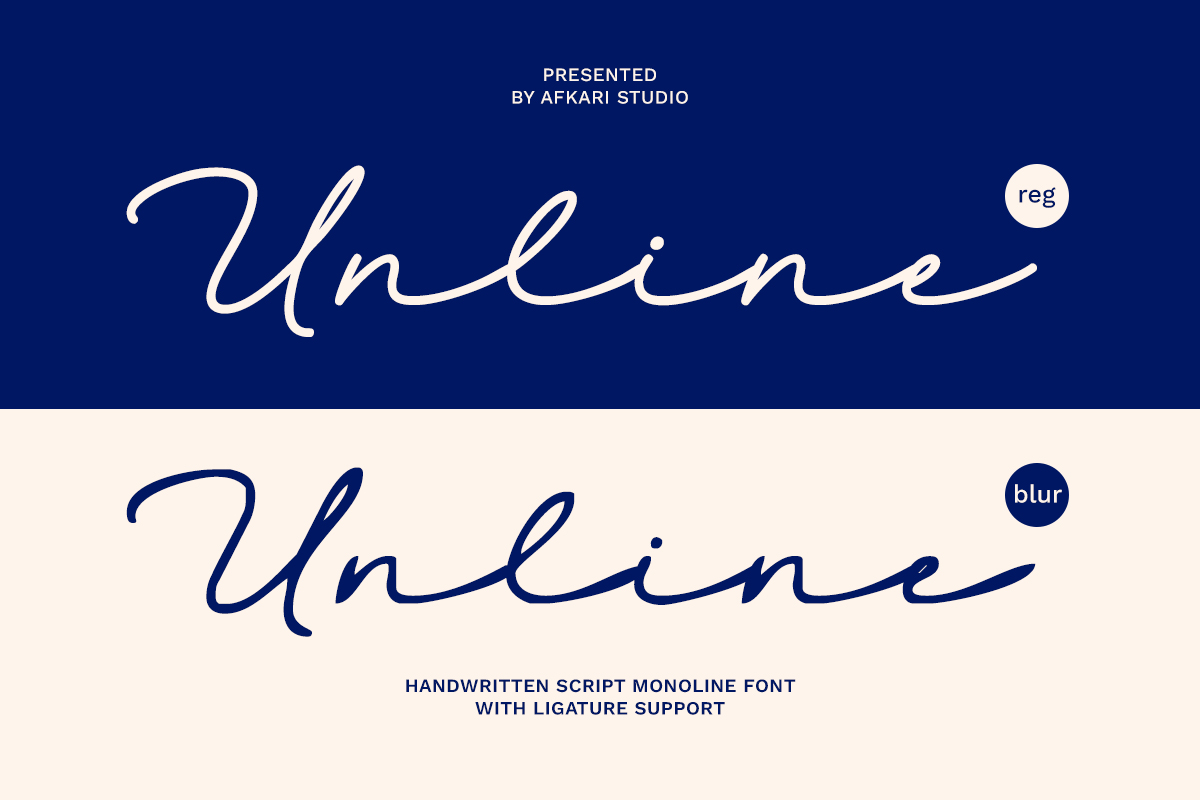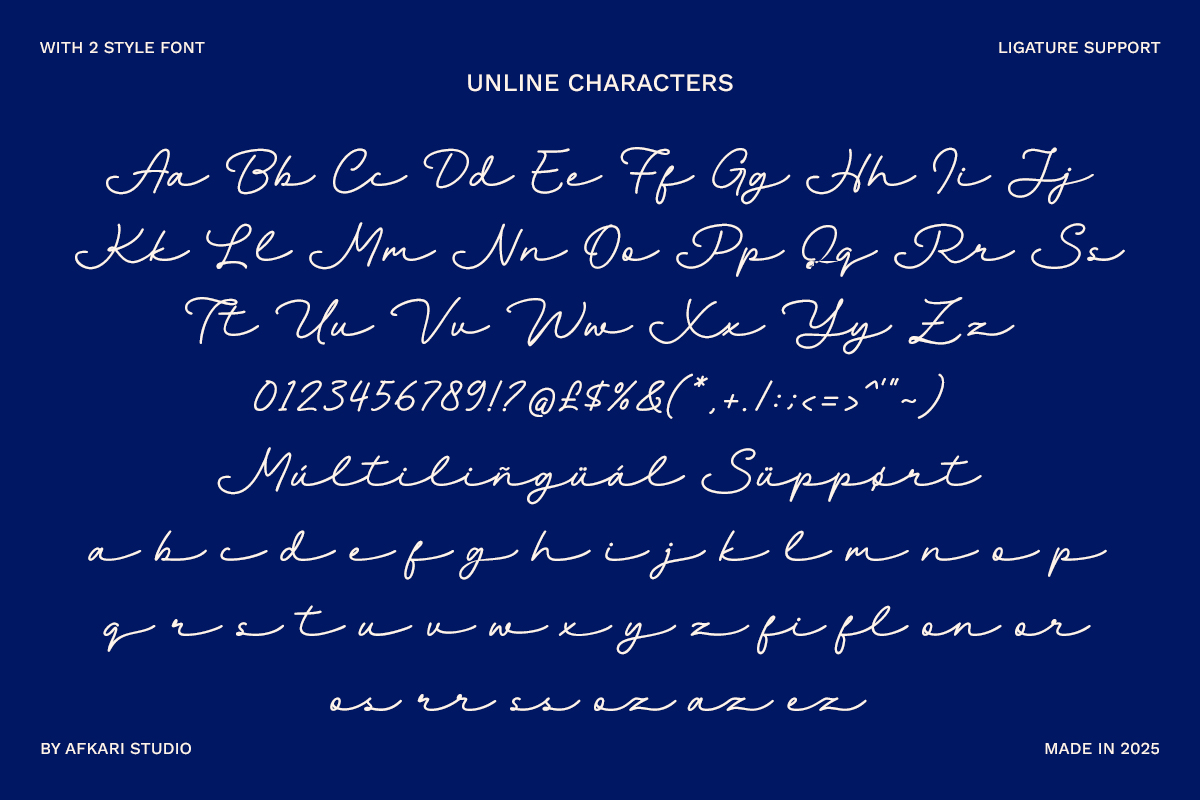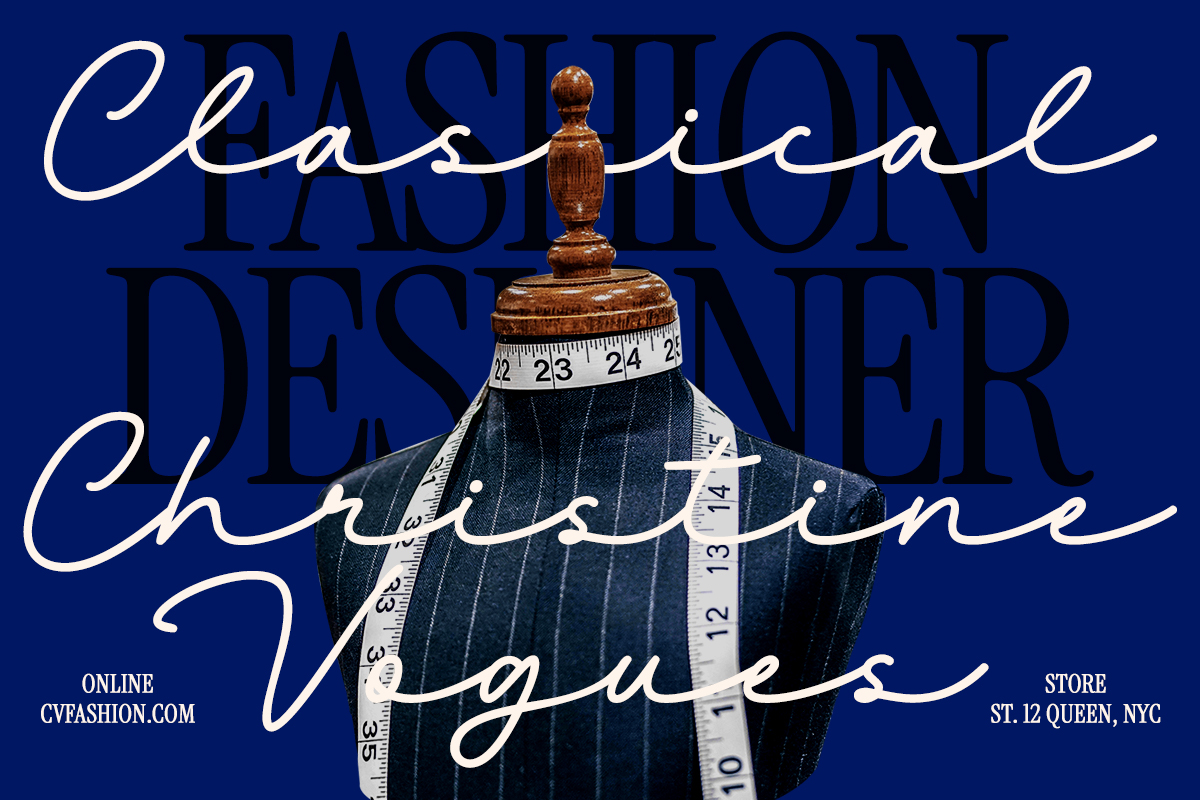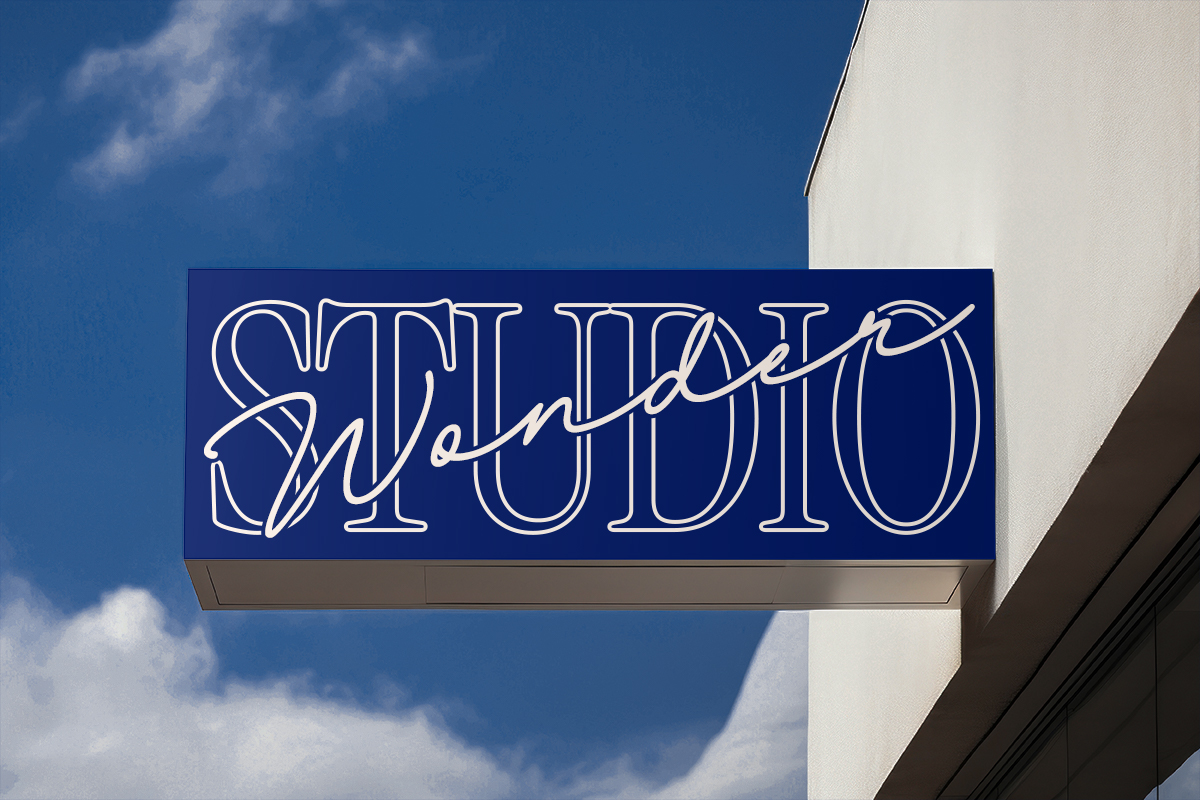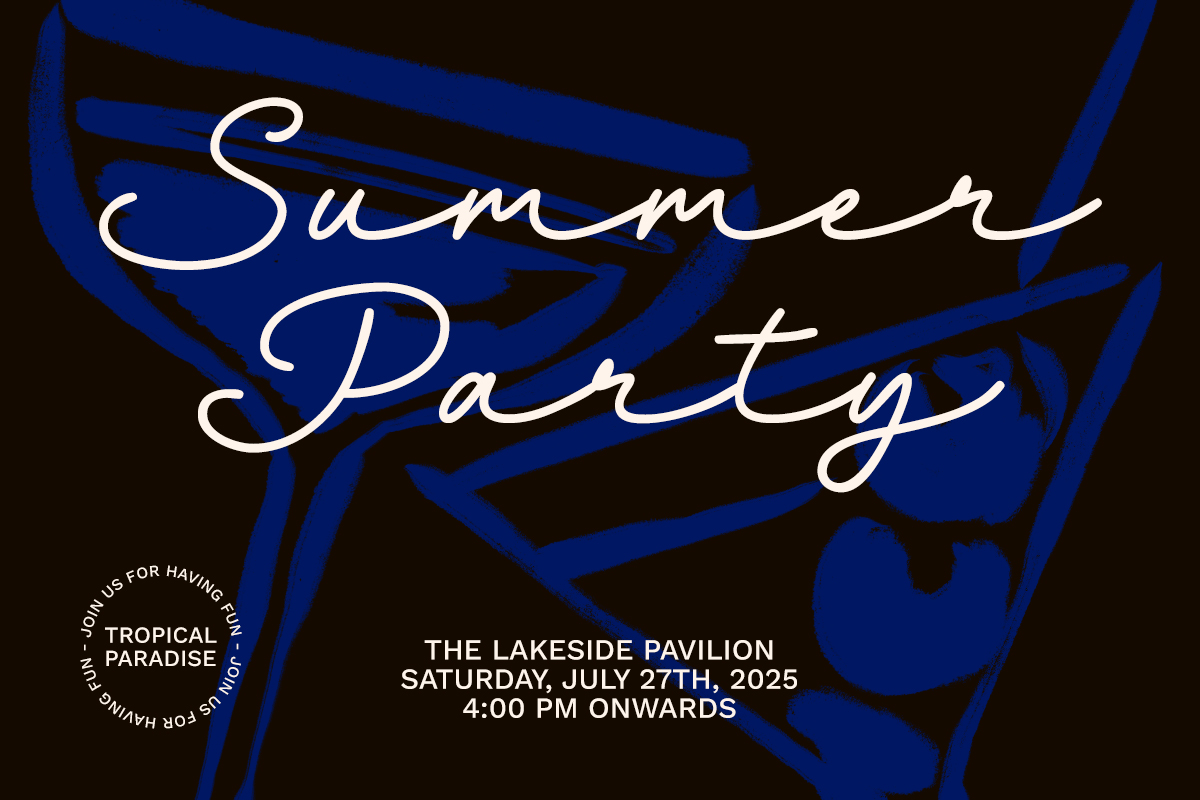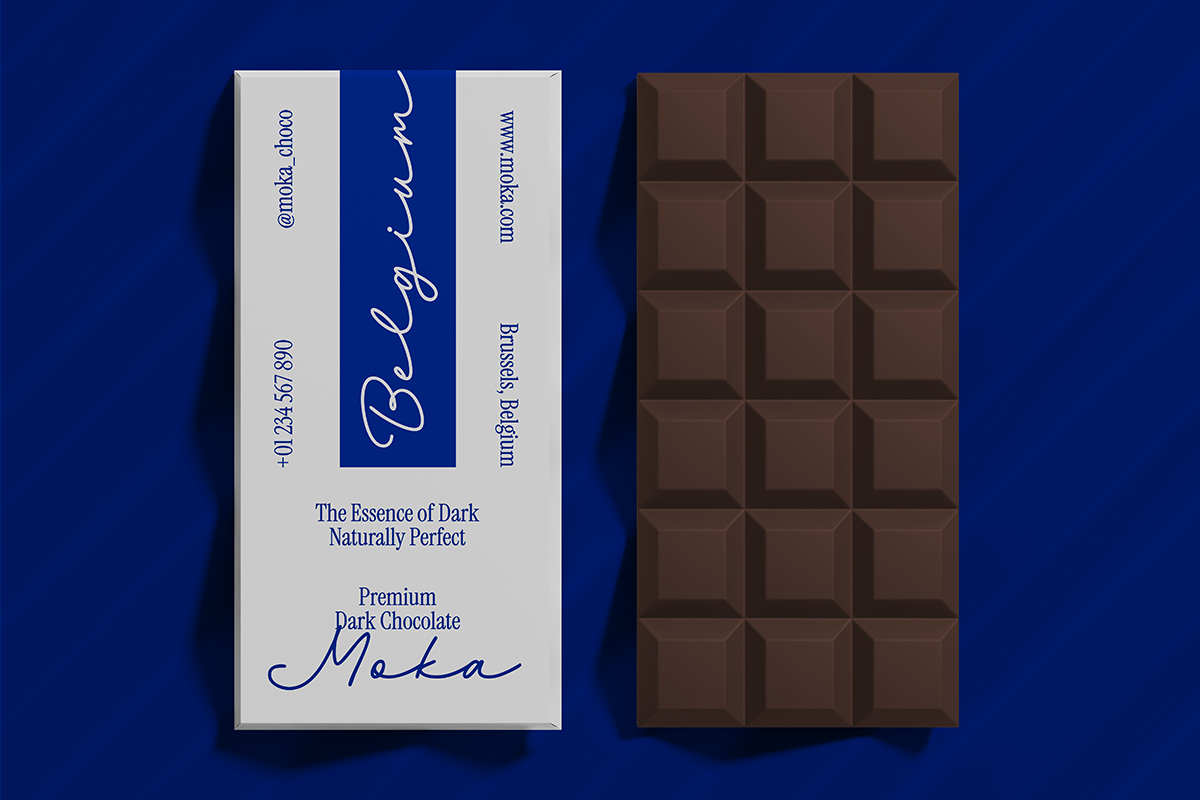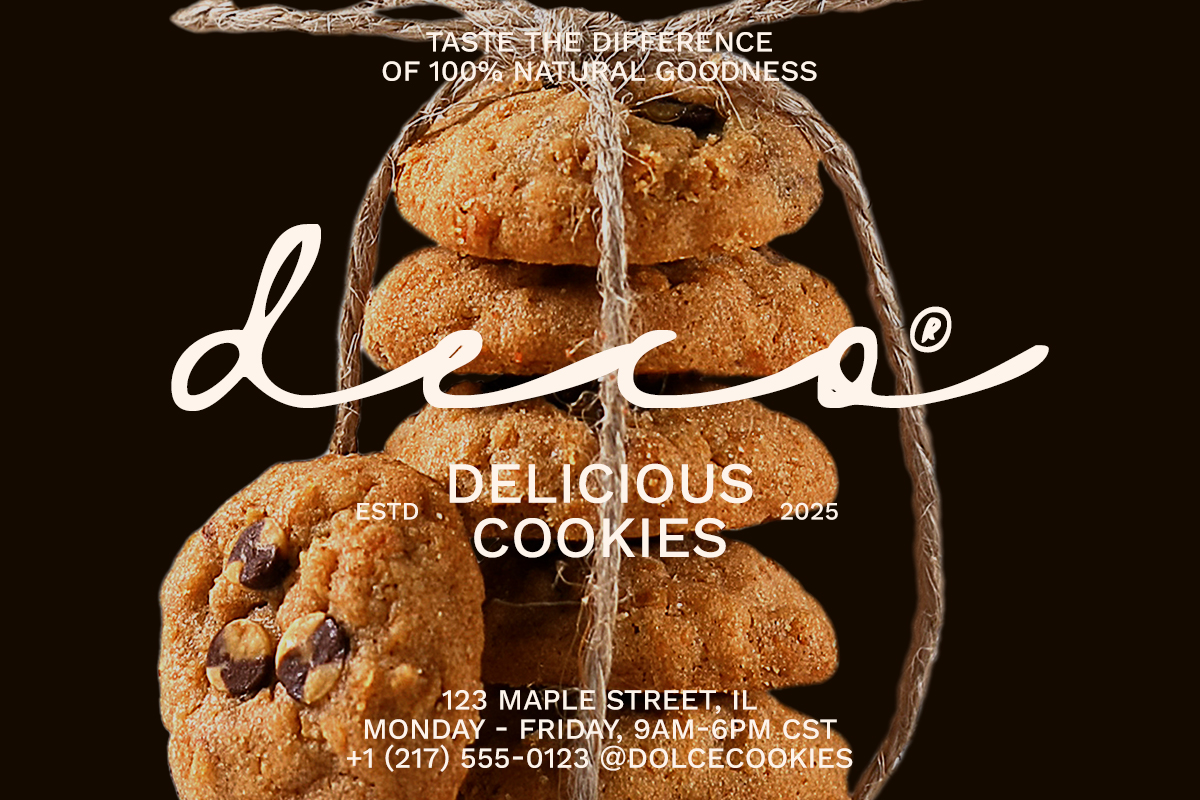
Unline – Handwritten Script Monoline Font is a smooth, simple, and elegant typeface inspired by natural handwriting and minimal line work. With a consistent stroke weight and graceful curves, Unline brings a clean, personal touch to your designs—making it perfect for everything from logos and branding to social media posts and wedding stationery.
This font comes in two unique styles:
1. Regular – clean, crisp, and effortlessly stylish
2. Blur – a softer, hazy version for a dreamy or textured feel
Whether you’re aiming for a modern handwritten look or adding warmth and character to your design, Unline is your go-to font for simplicity and sophistication.
Features;
– Uppercase, Lowercase, Number, and Punctuation
– Special Alternates and ligatures
– Mültîlíñgúãl Sùppört for; ä ö ü Ä Ö Ü ß ¿ ¡
Unline makes your message feel personal, modern, and beautifully hand-crafted.